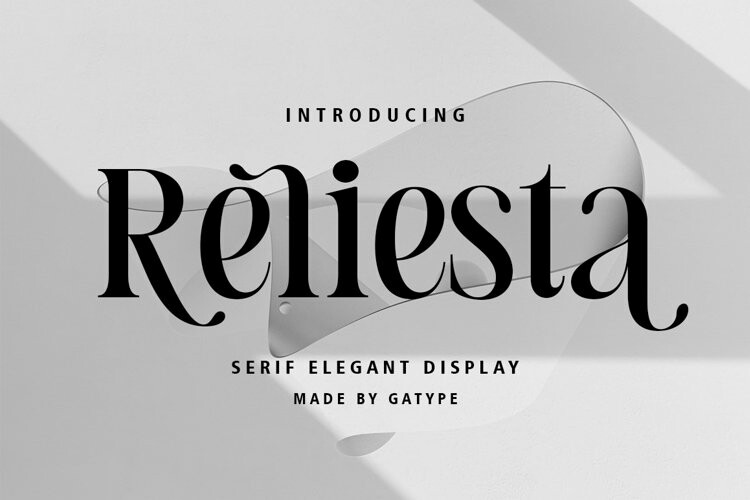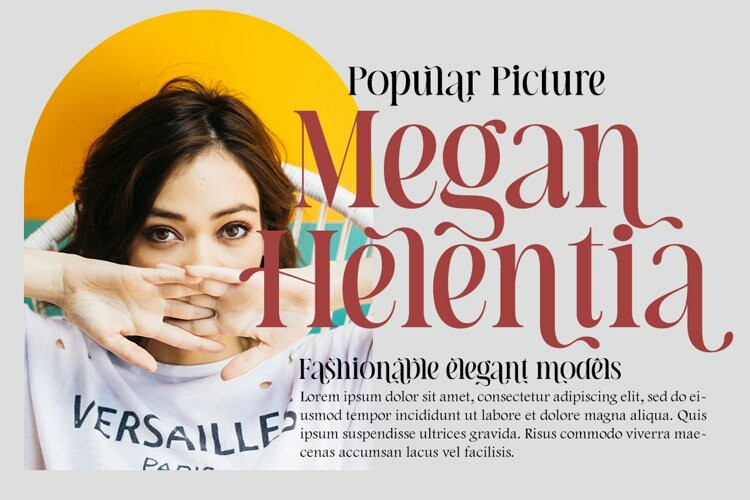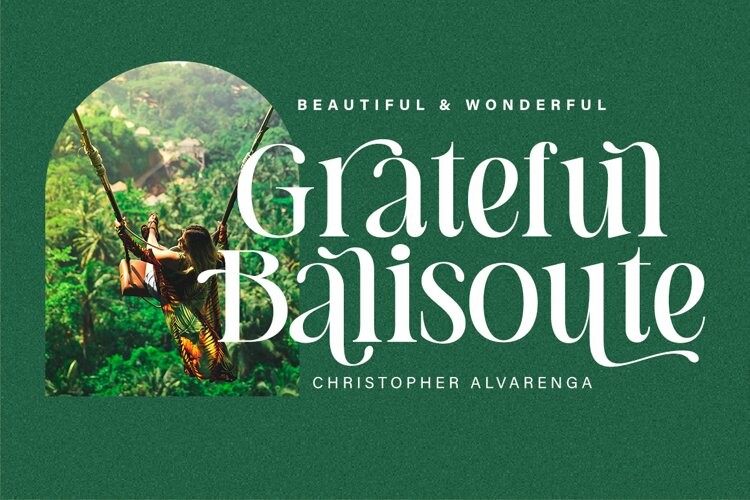
Reliesta Font
Reliesta FontHi Presenting Everyone We are proud to present our new font. The new Reliesta natural look with a classy and modern style makes this font look elegant, natural, stylish.
Reliesta will be perfect for invitations, logos & branding, photography, advertising, watermarks, social media posts, product packaging, product designs, labels, wedding designs, stationery, special events or anything else needed to create a theme.